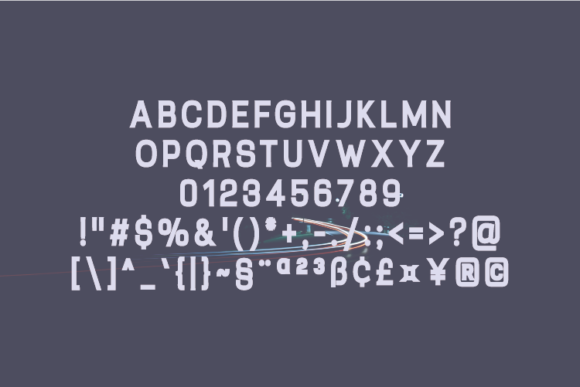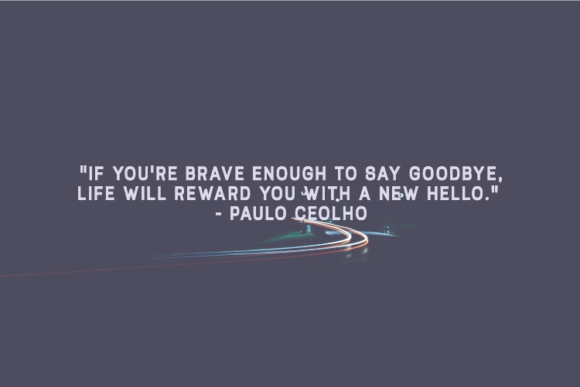
Golhem Font: Elevate Your Designs with a Minimal and Neat Sans Serif
In the world of typography, fonts play a crucial role in making or breaking a design. A well-chosen font can instantly elevate your project, making it stand out from the crowd. If you’re on the hunt for a font that embodies simplicity, elegance, and versatility, look no further than Golhem Font. This minimal and neat sans serif font is designed to seamlessly integrate into a wide array of projects, bringing a touch of sophistication and modernity to your creative endeavors.
The Essence of Golhem Font
Golhem Font is characterized by its clean lines, straightforward design, and uncluttered aesthetic. Its sans serif nature gives it a contemporary look that appeals to designers seeking a modern edge for their projects. The minimalistic approach of Golhem doesn’t compromise on style or readability, making it an excellent choice for a variety of applications, from digital interfaces to print materials.
One of the standout features of Golhem Font is its incredible versatility. Its neutral and adaptable design allows it to blend seamlessly into numerous contexts. Whether you’re working on:
- Digital Projects: Enhance your website, mobile app, or digital marketing materials with a font that reads well on screens of all sizes.
- Print Materials: Add a professional touch to your brochures, posters, or business cards with a font that exudes clarity and sophistication.
- Branding and Identity: Establish a strong brand presence with a font that communicates your message clearly and effectively.
This adaptability makes Golhem Font a valuable asset in any designer’s toolkit, offering the flexibility to experiment across different mediums and projects.
Why Choose Golhem Font?
There are several reasons why Golhem Font should be at the top of your font considerations:
- Readability: Its clear and simple design ensures that your message is conveyed with utmost clarity, making it ideal for body text and headings.
- Elegance: Golhem brings a level of sophistication to your designs without appearing too ornate or overbearing.
- Neutrality: Its neutral background allows your content and design elements to take center stage, creating a balanced visual experience.
How to Make the Most of Golhem Font
To truly leverage the potential of Golhem Font, consider the following tips:
- Pair it Wisely: Combine Golhem with other fonts that complement its minimalistic style. A serif font for body text or a script font for accents can create a visually appealing contrast.
- Experiment with Sizes: Play with different font sizes to create a hierarchy of information, making your design more engaging and easier to navigate.
- Utilize White Space: Embrace white space around your text to enhance readability and give your design a clean, uncluttered look.
Golhem Font is more than just a typeface; it’s a design companion that can help you bring your creative ideas to life. Its minimal and neat sans serif design, combined with its versatility and readability, makes it an excellent addition to any project. Whether you’re a seasoned designer or a crafting enthusiast, Golhem Font offers the perfect blend of style, functionality, and modernity to make your designs stand out. So, add Golhem to your creative arsenal and discover how it can elevate your projects to new heights.